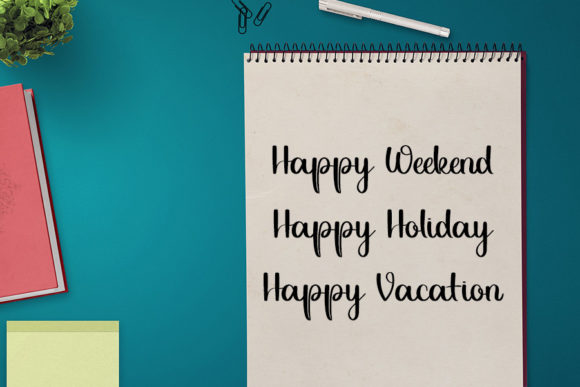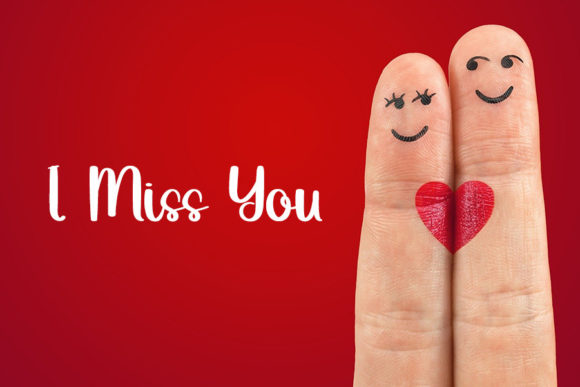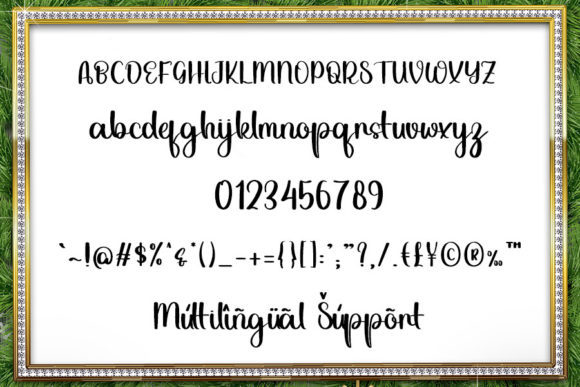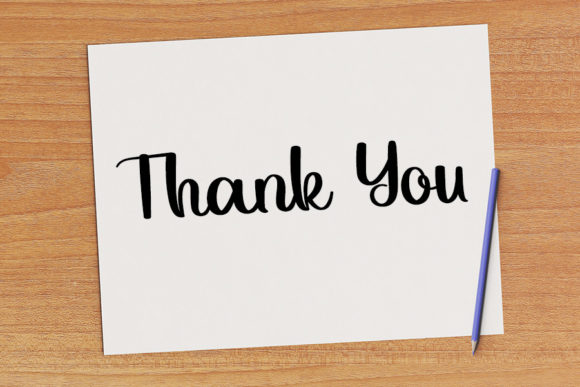
Introducing Chicken Wrap Font: Elevate Your Designs with Timeless Elegance
In the world of typography, a font can make or break the aesthetic of a design project. For those seeking a stylish, handwritten font that exudes a contemporary atmosphere while maintaining an air of classic sophistication, look no further than the Chicken Wrap Font. Inspired by timeless classic calligraphy, this font strikes the perfect balance between modern flair and traditional elegance, making it an indispensable tool for designers and crafters alike.
The Essence of Chicken Wrap Font
Chicken Wrap Font is characterized by its impeccable form and balanced design. It walks the fine line between being not too thin and not too thick, offering a versatility that is hard to find in many contemporary fonts. This balanced approach ensures that the font can be used across a wide range of projects, from elegant branding and advertising to more casual applications like crafting and personal stationery.
Key Features of Chicken Wrap Font
- Contemporary yet Classic: The font merges modern design sensibilities with a classic calligraphic feel, making it uniquely versatile.
- Balanced and Varied: With its balanced stroke widths and varied letterforms, Chicken Wrap Font brings a dynamic and engaging quality to any text.
- Elegant and Readable: Its clear readability and elegant appearance make it perfect for both body text and headlines.
- Handwritten with Flair: The font’s handwritten nature adds a personal touch to designs, setting them apart from more generic typefaces.
Applications of Chicken Wrap Font
The versatility of Chicken Wrap Font makes it suitable for a myriad of design projects. Here are some of the most popular applications:
- Branding and Logotypes: Create a lasting impression with a unique and memorable brand identity.
- Advertising and Marketing Materials: Stand out in a crowded marketplace with elegant and compelling typography.
- Stationery and Invitations: Add a touch of class and sophistication to personal and professional correspondence.
- Crafting and DIY Projects: Elevate handmade crafts and DIY projects with a stylish and personalized font.
- Digital Content: Enhance blogs, social media posts, and website content with a distinctive and engaging typeface.
Why Choose Chicken Wrap Font?
In a sea of digital fonts, Chicken Wrap Font stands out for several reasons:
- Unique Aesthetic: Offers a fresh alternative to more commonly used fonts, giving designs a distinctive look.
- High Versatility: Can be used across various design projects, making it a valuable addition to any designer’s toolkit.
- Easy to Read: Despite its elegant and handwritten nature, the font maintains high readability, even at smaller sizes.
- Inspired by Timeless Classics: Brings a sense of enduring style and sophistication to modern designs.
Chicken Wrap Font is more than just a typeface; it’s a design statement. With its stylish handwritten appearance, contemporary vibe, and classic inspiration, it offers designers and crafters a powerful tool to elevate their projects. Whether you’re working on a branding campaign, crafting personal stationery, or creating digital content, Chicken Wrap Font provides the perfect blend of elegance, versatility, and personality. Make your designs stand out with the timeless charm of Chicken Wrap Font.